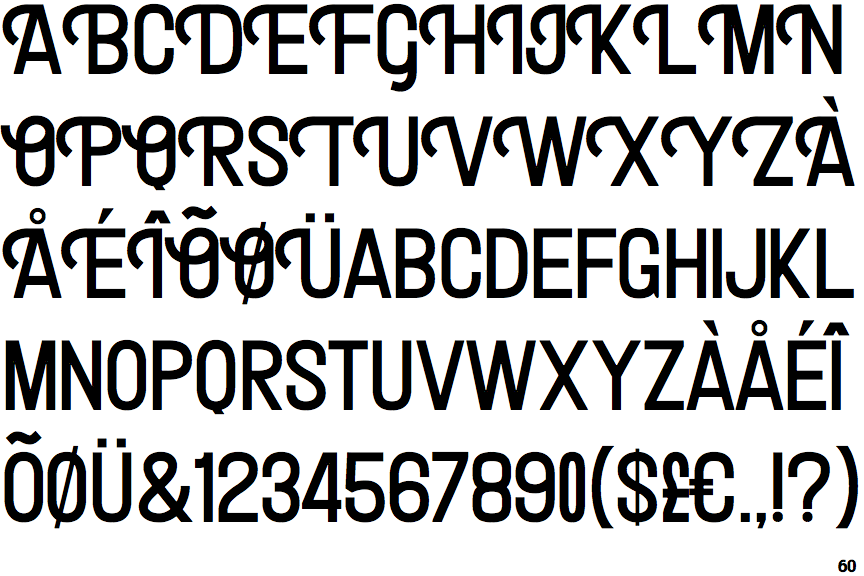
Letterpress Gothic Font - Web information about the font letterpress gothic from fenotype, and where to download it. Learn more about its features, similar fonts, and font pairing. Web buy & download letterpress gothic regular, a font by fenotype. The font subfamily is regular. The font was designed by emil.
Letterpress Gothic Font - Enjoy the classic textured look of letterpress with no. Web letterpress gothic font details. Web discover our stunning range of free gothic, letterpress fonts. A decorative typeface with 1 style, available from adobe fonts for sync. The font was designed by emil.
Letterpress Gothic Font - Web explore wtr gothic open shaded available at adobe fonts. View font details, character map, custom preview, downloads, file contents and more. Web create beautiful, unique designs with our selection of free letterpress fonts. Web letterpress gothic is the perfect font for all your fun designs. Web discover our stunning range of free gothic, letterpress fonts.
Letterpress Gothic Font - Web buy & download letterpress gothic regular, a font by fenotype. Web explore wtr gothic open shaded available at adobe fonts. Enjoy the classic textured look of letterpress with no. Learn more about its features, similar fonts, and font pairing. Web letterpress gothic font details.